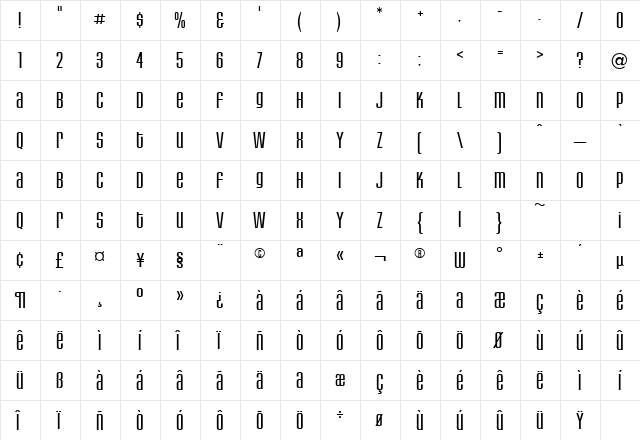
HouseGothic LightAltCap s
Design Context for HouseGothic LightAltCap Typeface
HouseGothic LightAltCap takes a clean, functional approach — its unadorned letterforms prioritise legibility and work reliably across screen and print environments. Its slender proportions lend an understated elegance to any composition.
Ideal for fashion and beauty branding, minimal editorial layouts, and premium digital experiences.
Font Pairing: Pair HouseGothic LightAltCap with a medium or bold serif for headlines — the weight contrast creates an elegant, high-end feel.
Pro Tip: Avoid using HouseGothic LightAltCap at very small sizes where its slender strokes can disappear. It performs best at medium to large sizes.